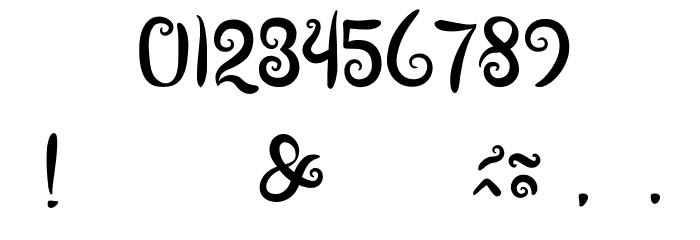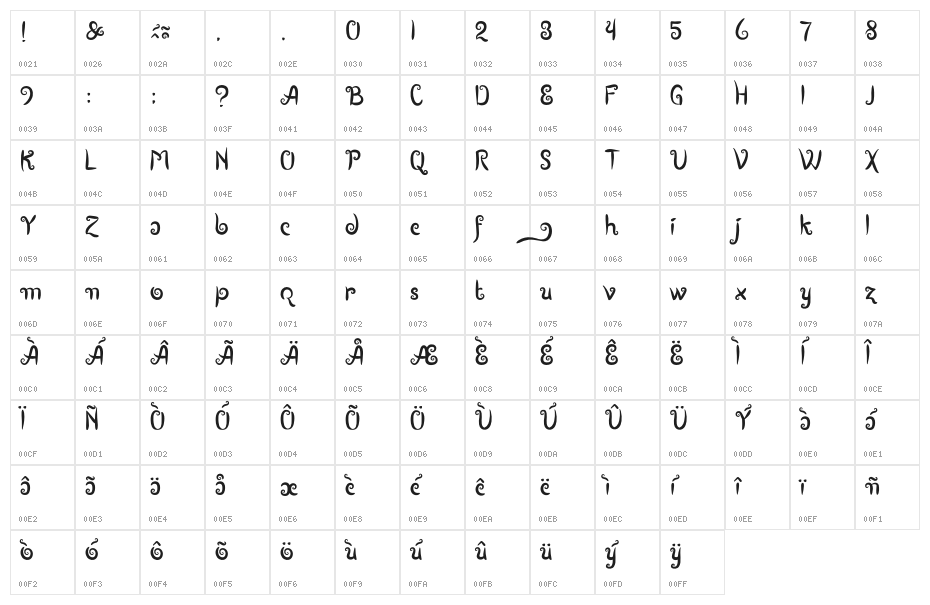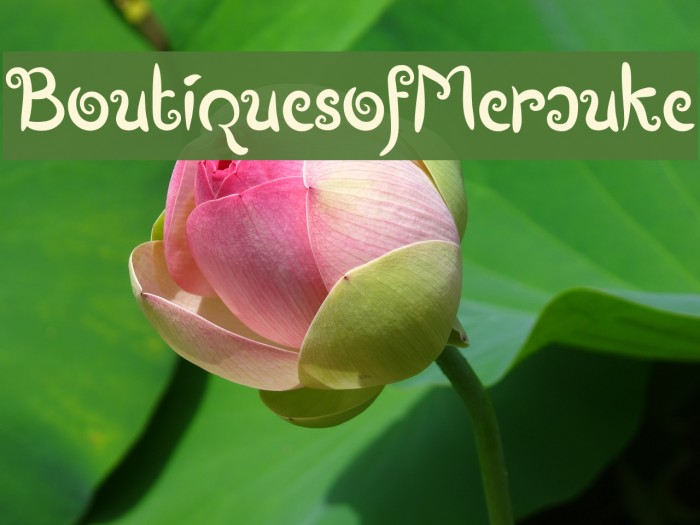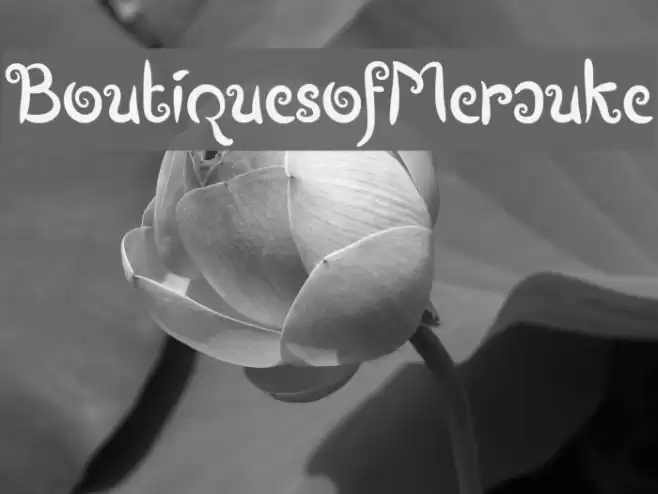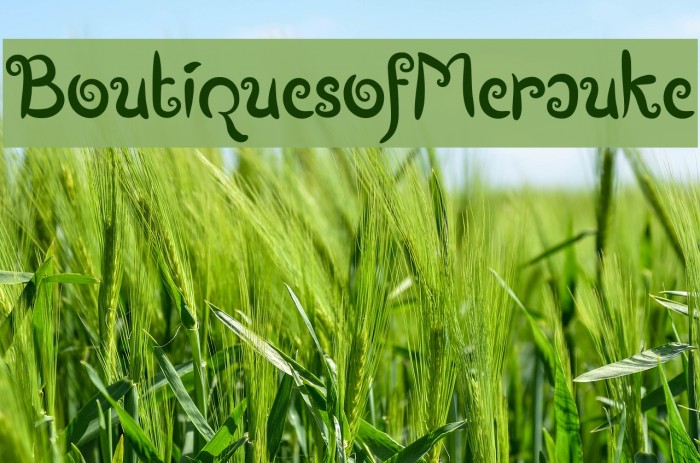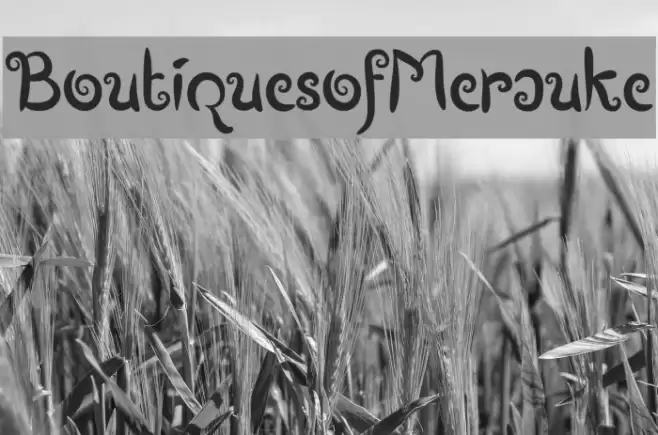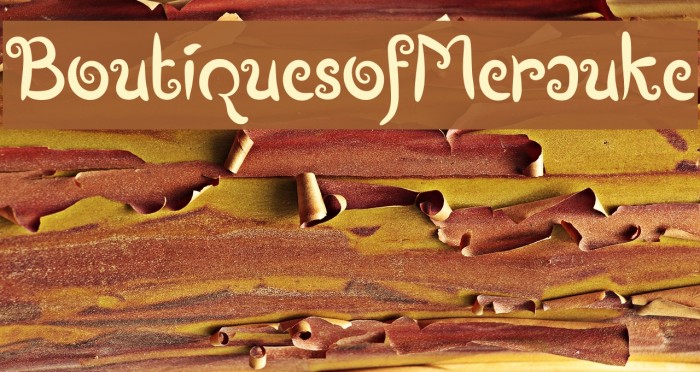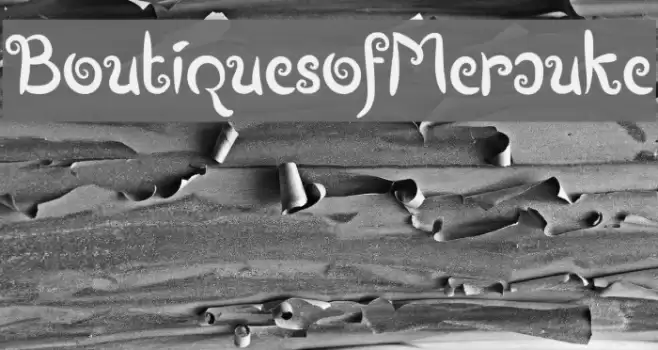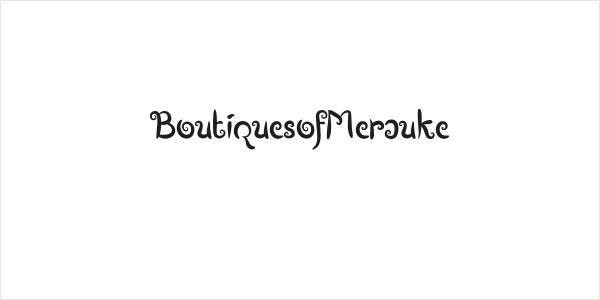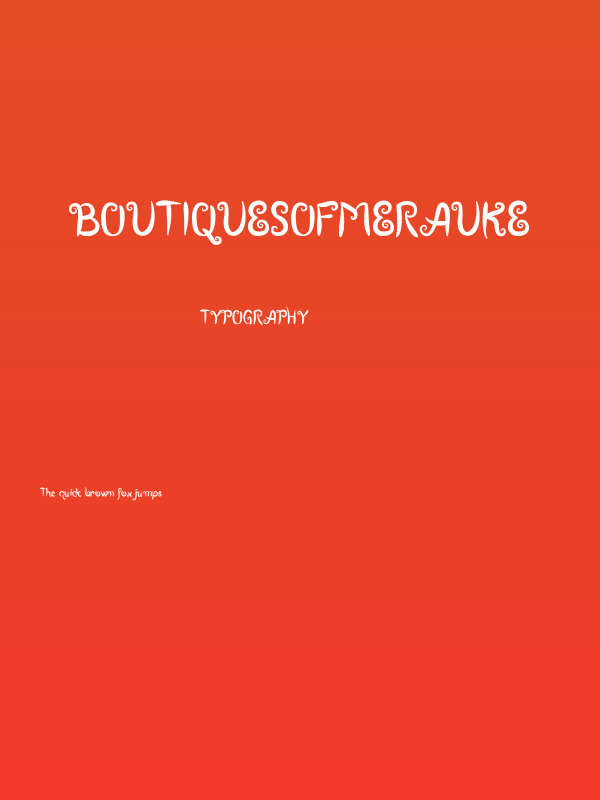
BoutiquesofMerauke Font
BoutiquesofMerauke Description
This font features a whimsical and decorative style with playful curls and swirls integrated into each character. The uppercase letters are bold and expressive, with unique embellishments that give them a lively appearance. The lowercase letters maintain the same playful aesthetic, with consistent curves and loops that add to the font's charm. The numbers are equally stylized, ensuring a cohesive look across all characters. Special characters like the ampersand and exclamation mark are designed with the same decorative flair, making this font ideal for creative and artistic projects.
| Proposed Projects | Ideal for invitations, greeting cards, children's books, and playful branding. |